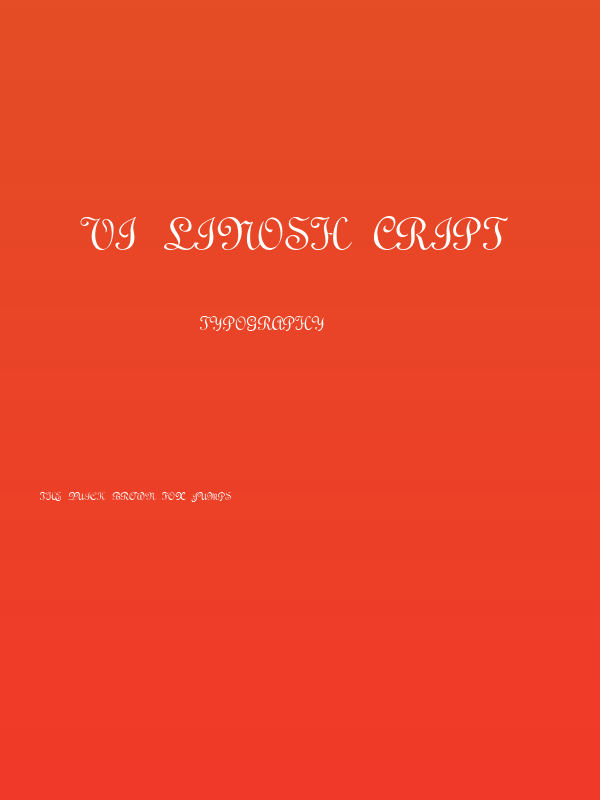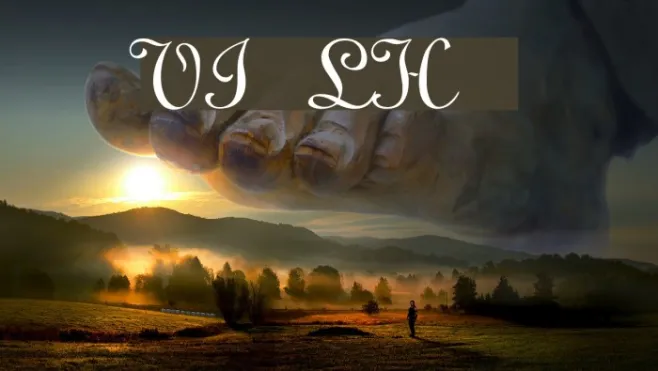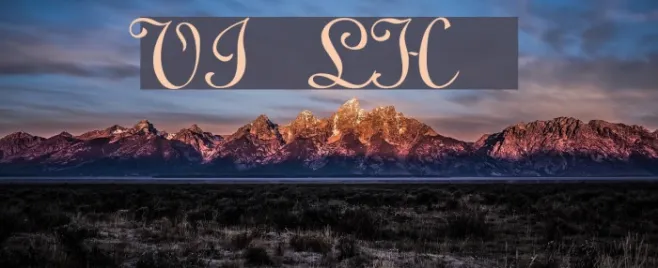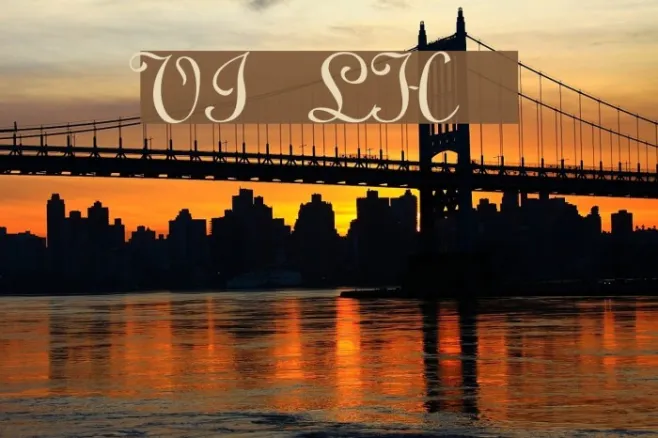
VI LinosH cript Font
VI LinosH cript Description
This font showcases an elegant and decorative script style, characterized by its flowing, cursive letterforms. The uppercase letters exhibit intricate loops and swirls, giving them a sophisticated and ornate appearance. The lowercase letters maintain a consistent style, complementing the uppercase with their graceful curves. The numerals are distinct and maintain the decorative theme, while the special characters are designed to match the overall aesthetic. This font is ideal for projects that require a touch of elegance and flair.
| Proposed Projects | Ideal for wedding invitations, luxury branding, greeting cards, and decorative headlines. |